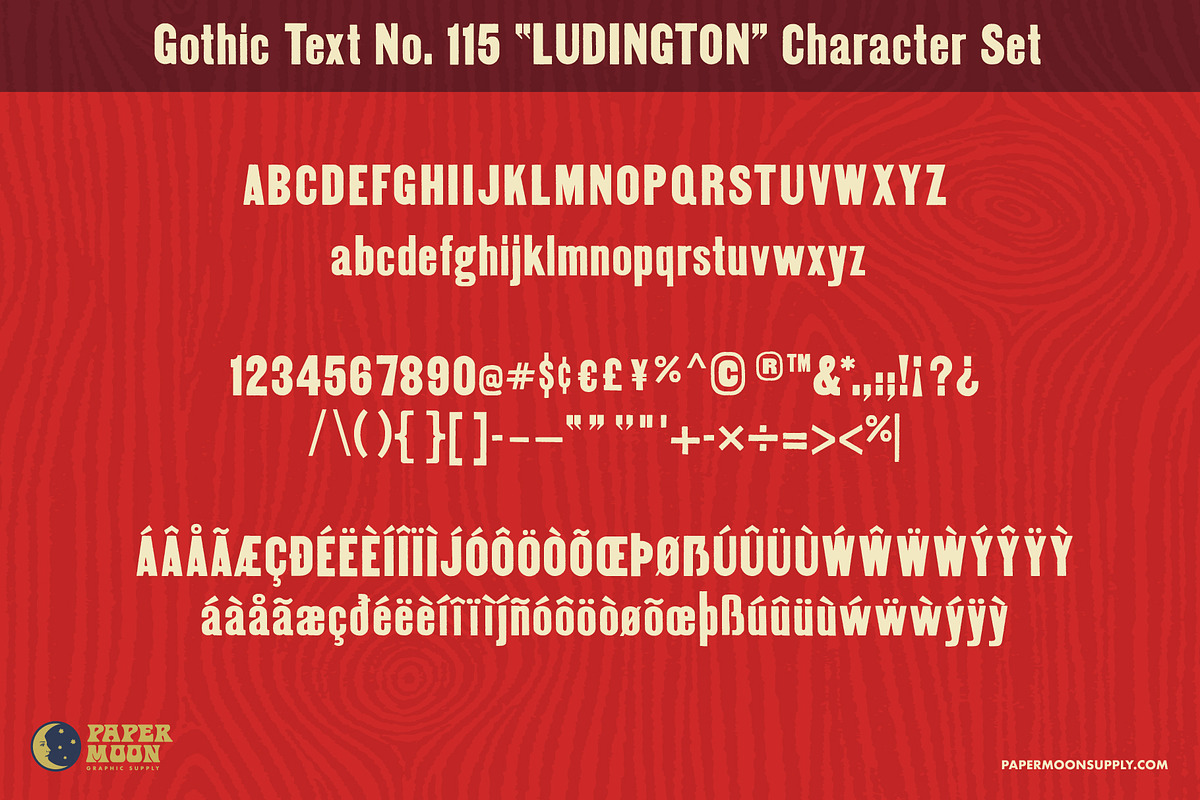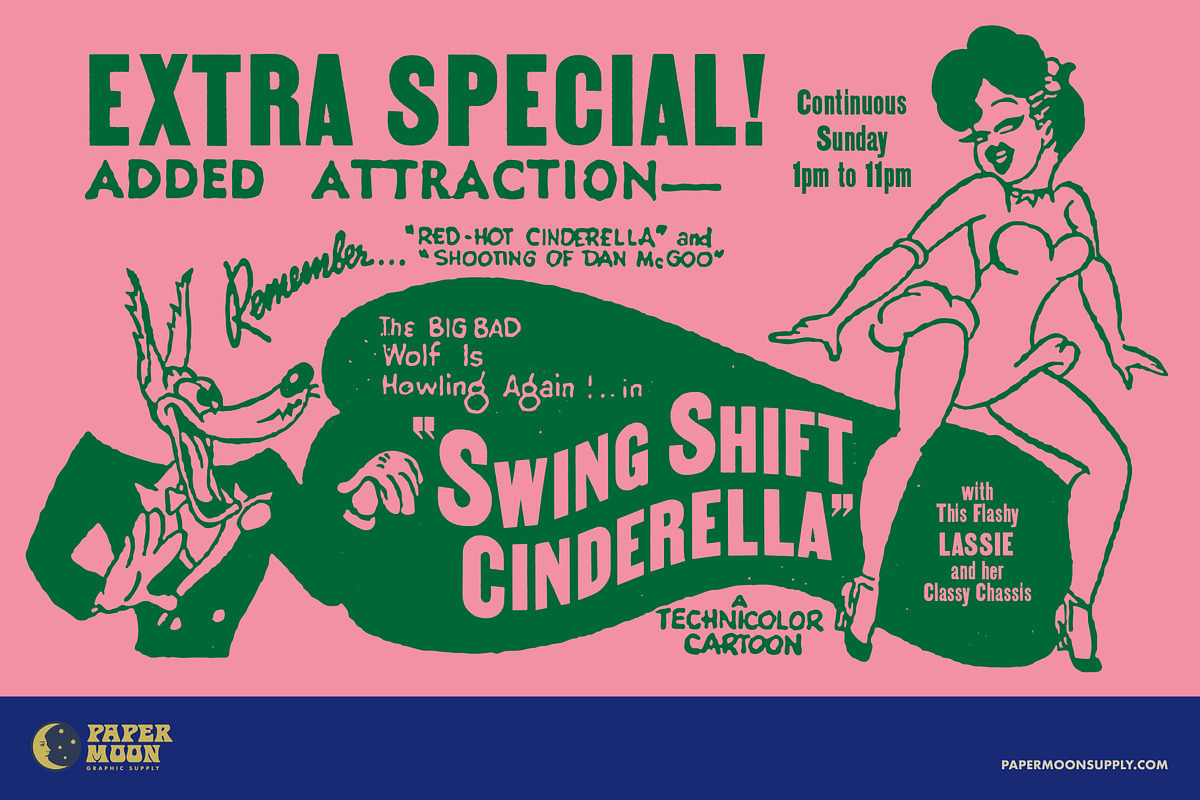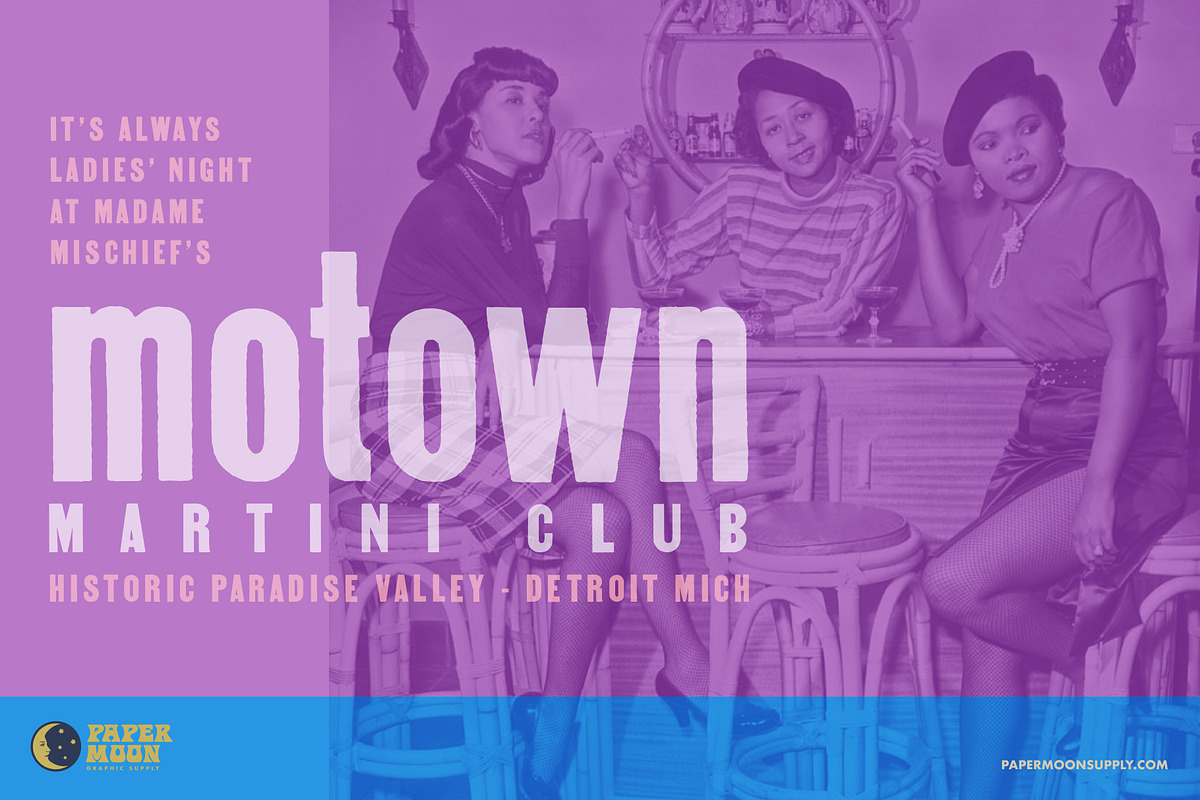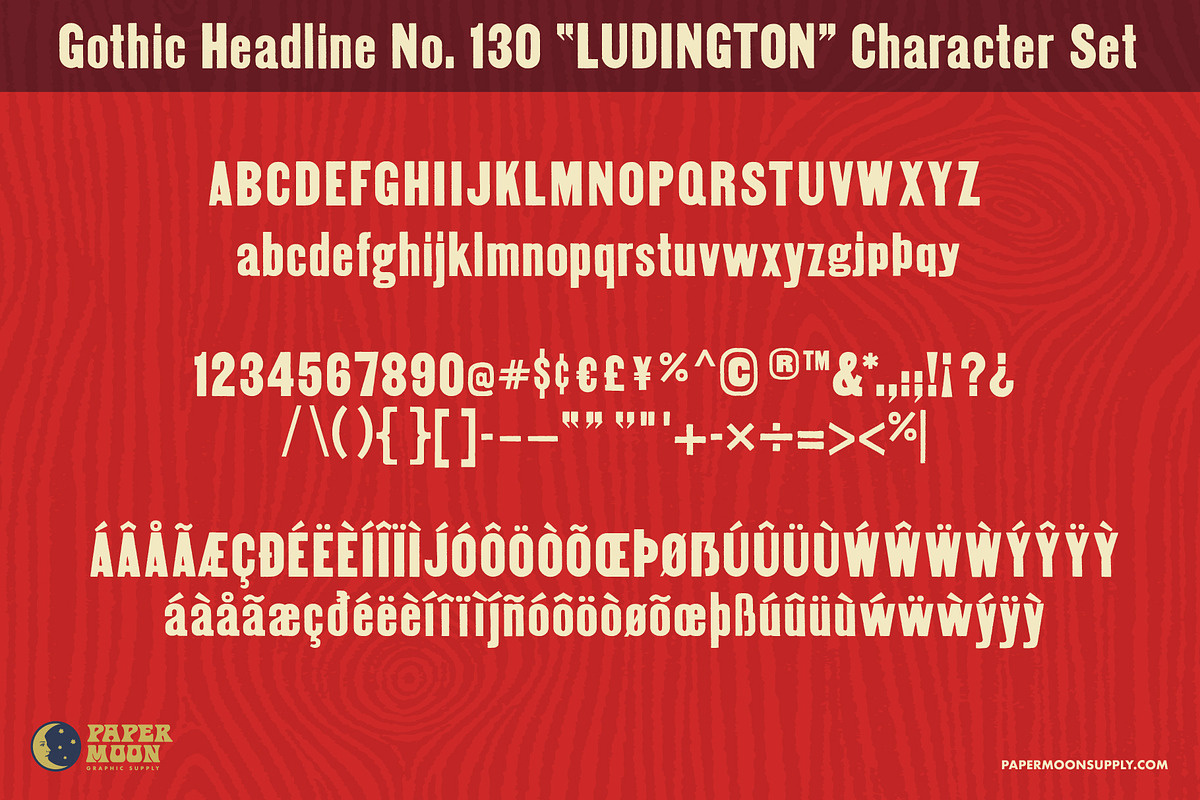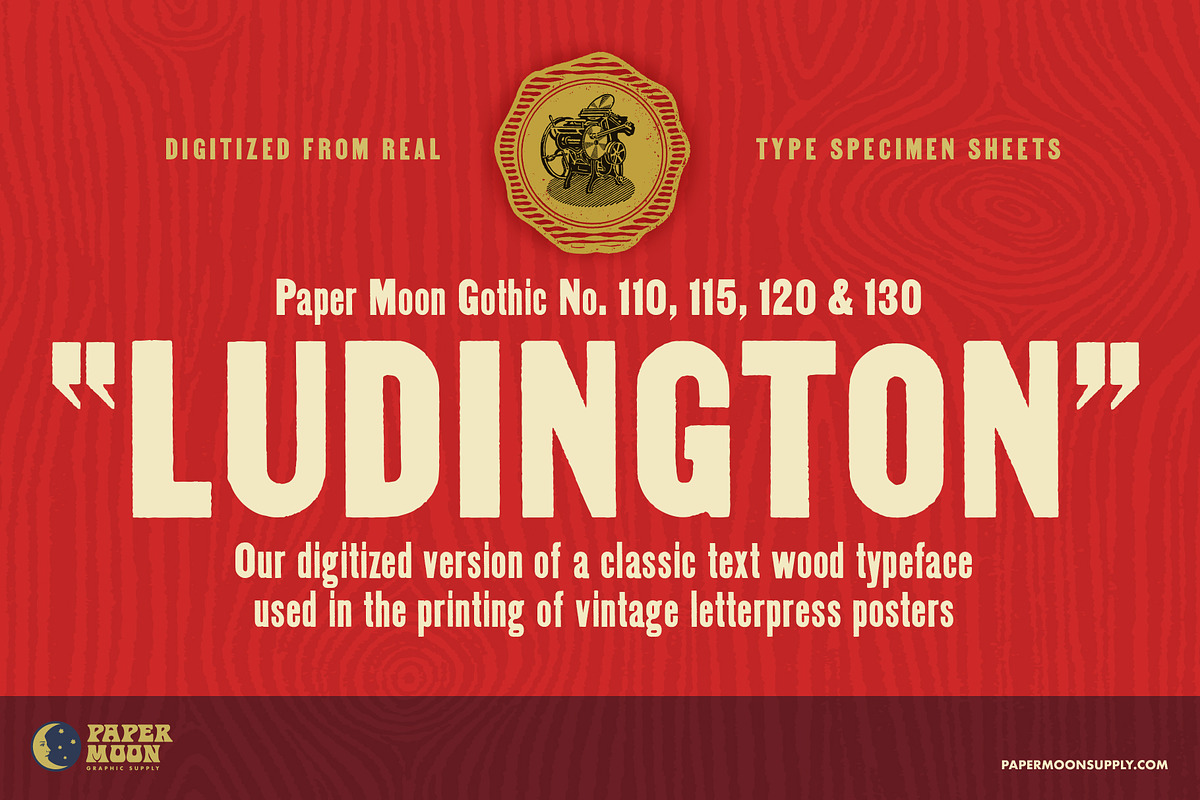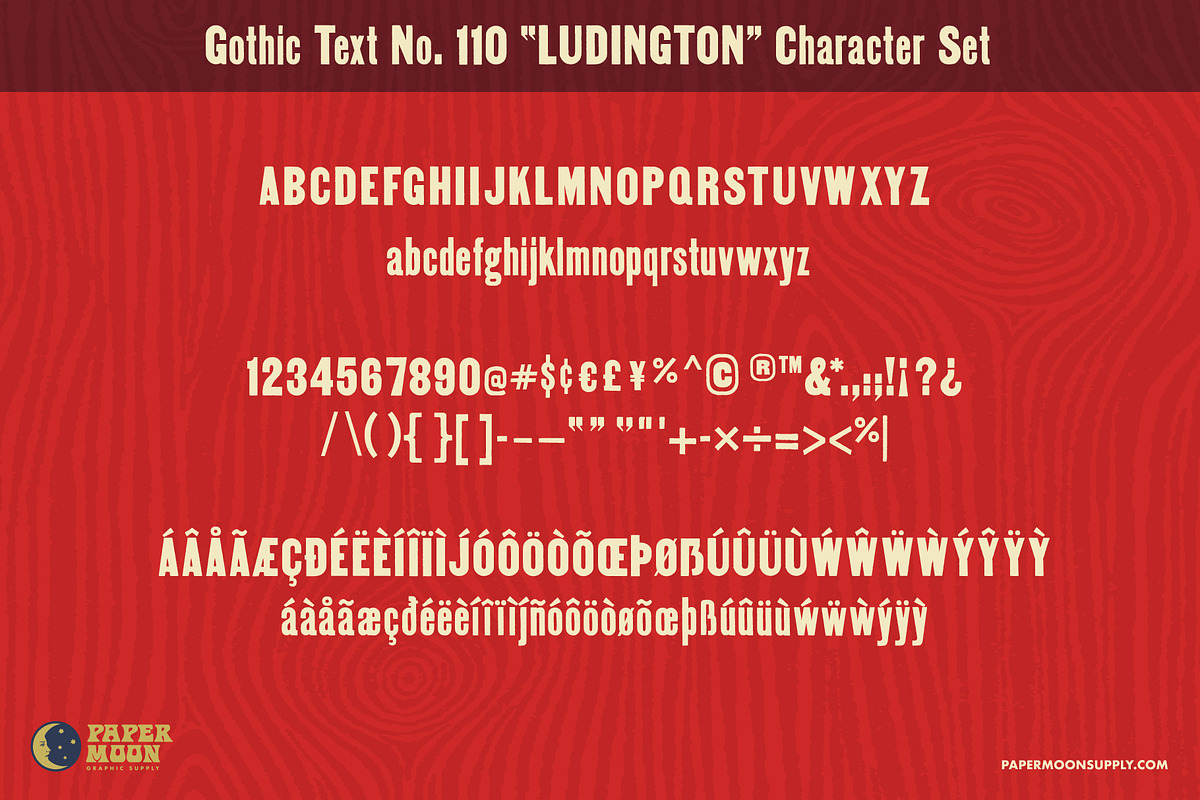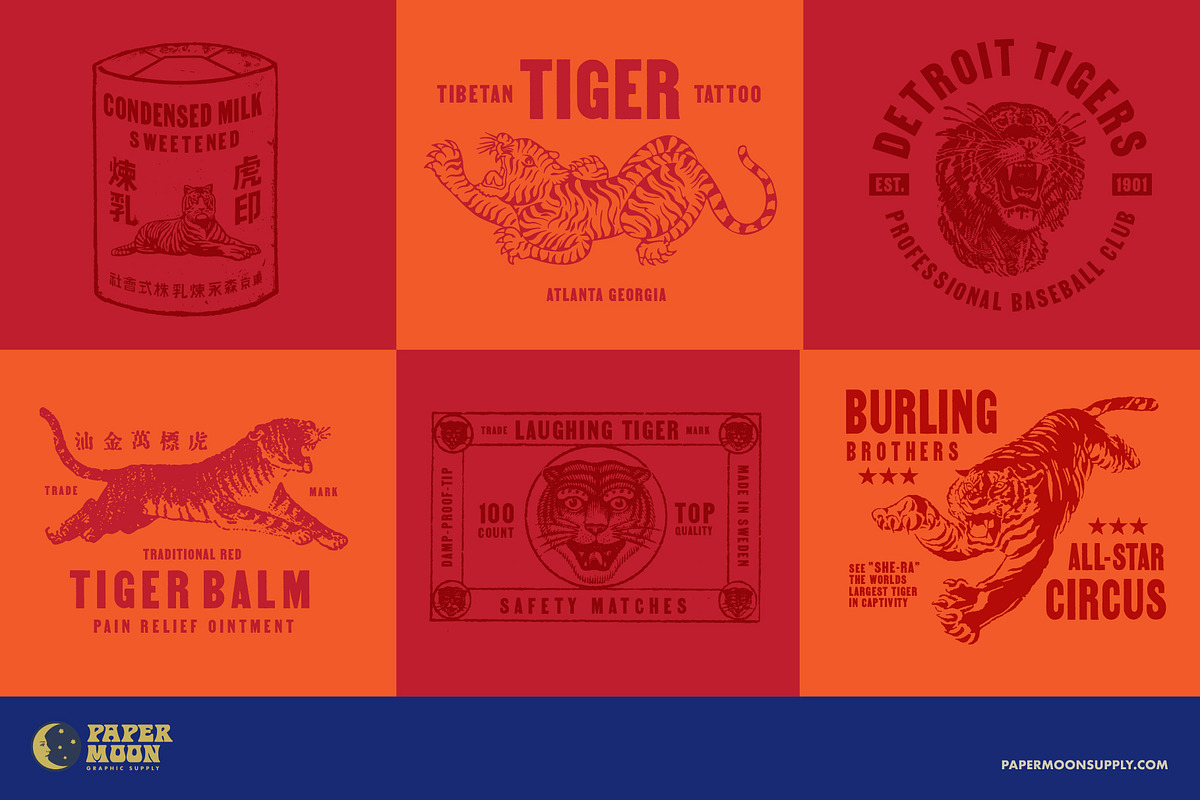
Ludington Vintage Letterpress Font
A new digitized letterpress font seen on vintage concert posters and show prints.
Ludington was inspired by classic hand-set wood type that was used on vintage letterpress concert posters and show prints by print-houses like Globe Poster, Enquirer Printing, and Hatch Show Print.
- Four style variations: Vintage Text (110), Vintage Headline (120), Modern Text (115), Modern Headline (130)
- Digital reproductions from actual letterpress printed specimen sheets
- Highly-detailed ink-on-paper edge reproduction
- Complete alphabet, number, and punctuation sets